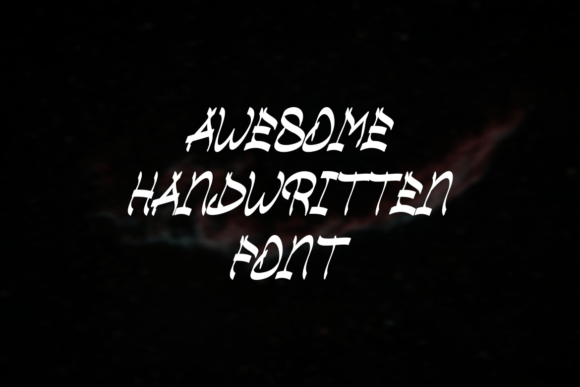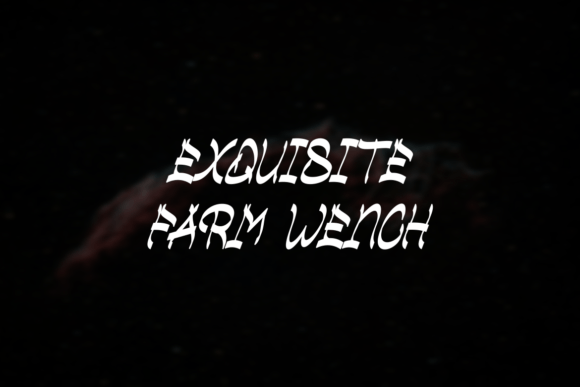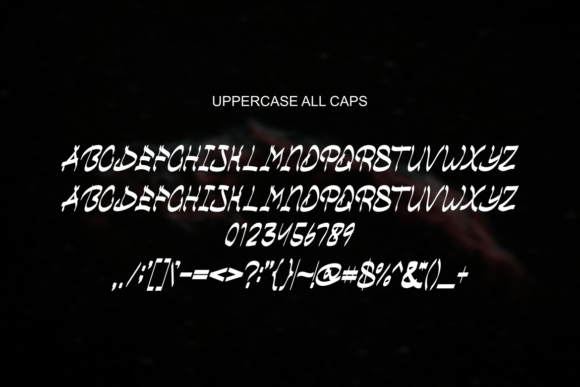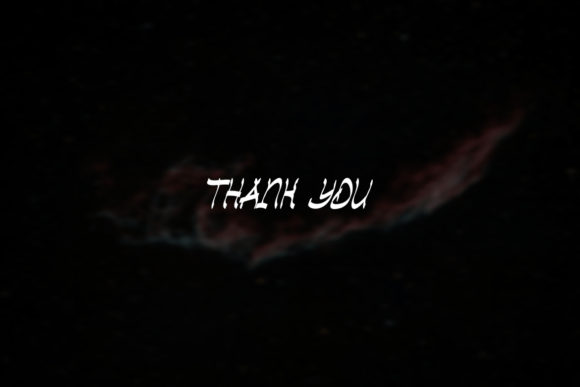
Introduction to Ghondangs Font
Ghondangs is a bold, handwritten font that looks like it was written with a marker.
It’s thick, strong, and has a casual, playful feel, perfect for making headlines or signs stand out .
Key Features of Ghondangs Font
Why Choose Ghondangs Font?